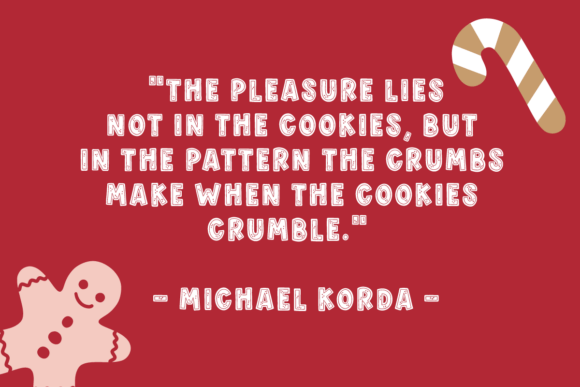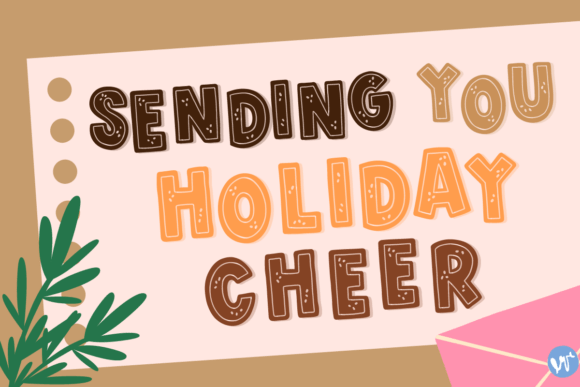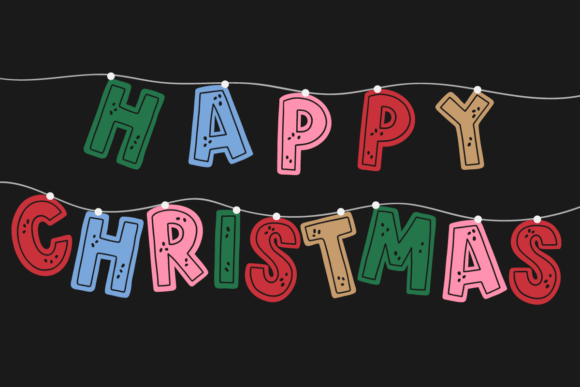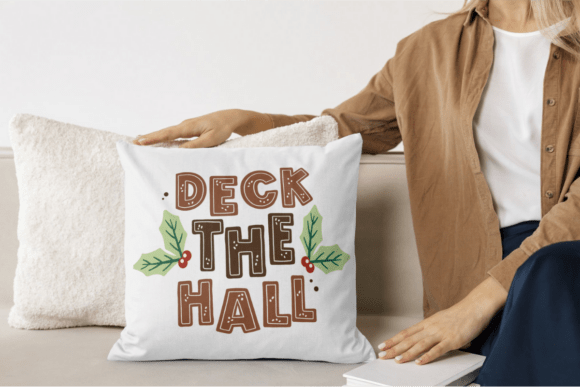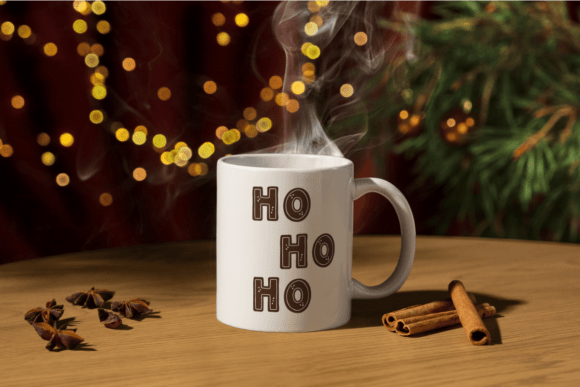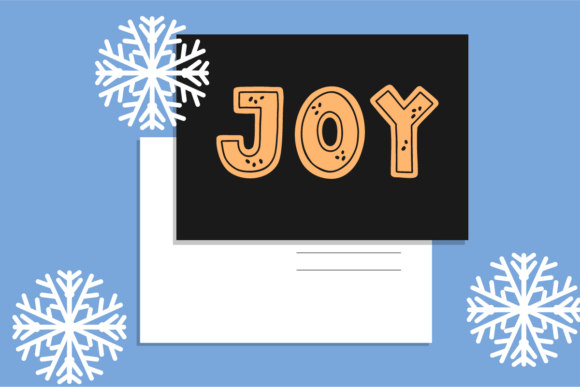
Introduction to Merry Ginger Font
Merry Ginger is a cute gingerbread decorative font.
Perfect for Christmas projects, card, shirts, retro designs, Christmas invitations, mugs, stickers, playful quotes, creating posters, logos, greeting cards, packaging, decorating the illustration and so much more Files included *Merry ginger.
Key Features of Merry Ginger Font
Why Choose Merry Ginger Font?